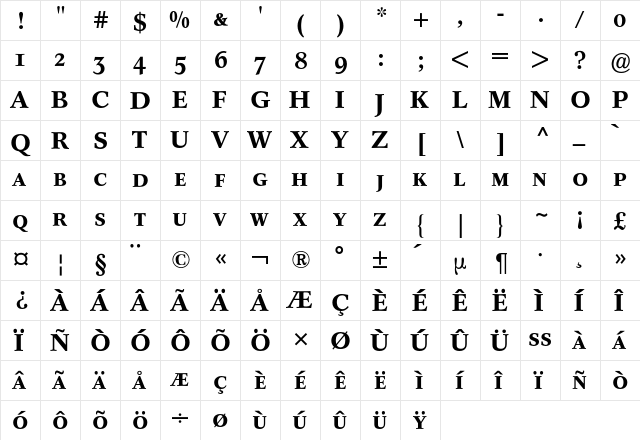
Concorde Expert BQ Regular
Design Context for Concorde Expert BQ Typeface
Concorde Expert BQ takes a measured approach to typography — its balanced proportions and neutral character make it a reliable workhorse for both digital and print work.